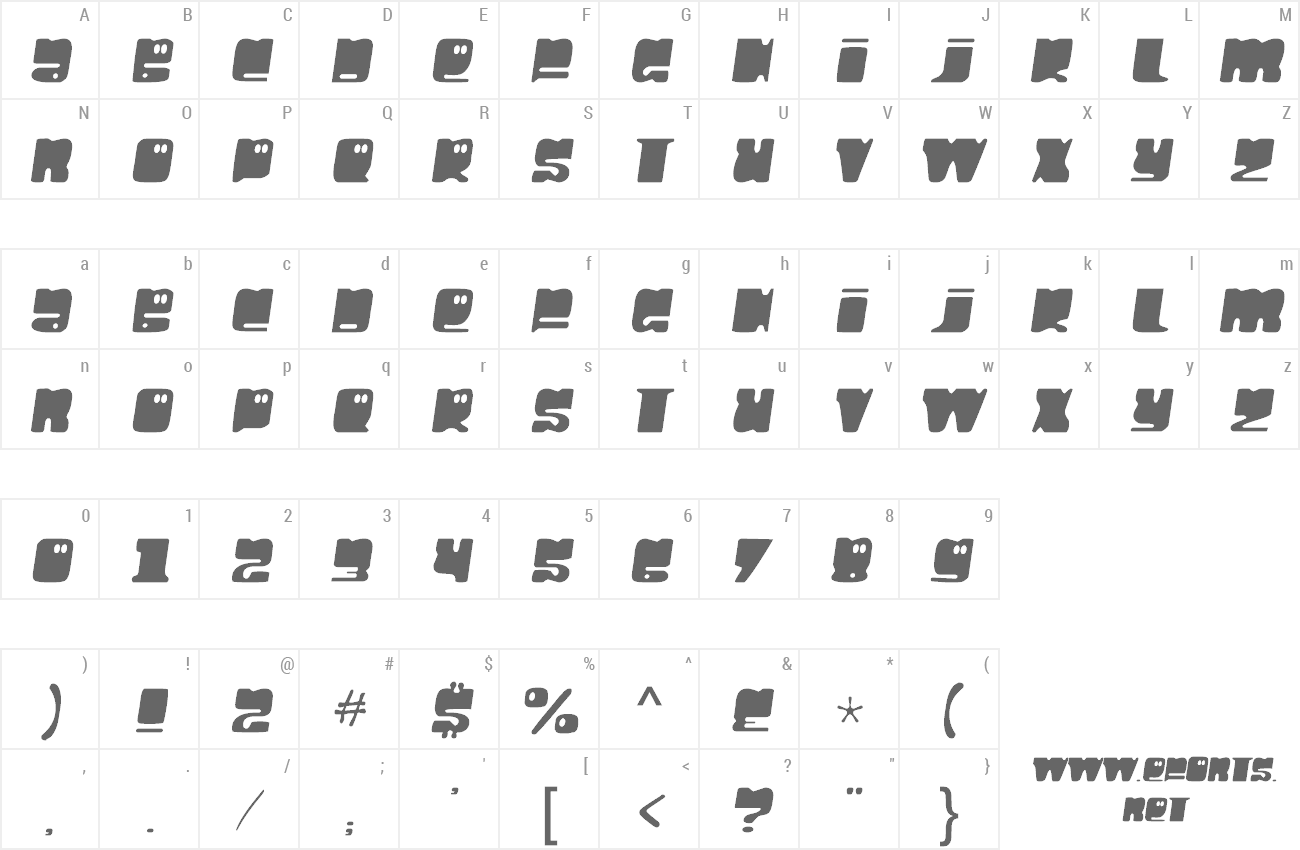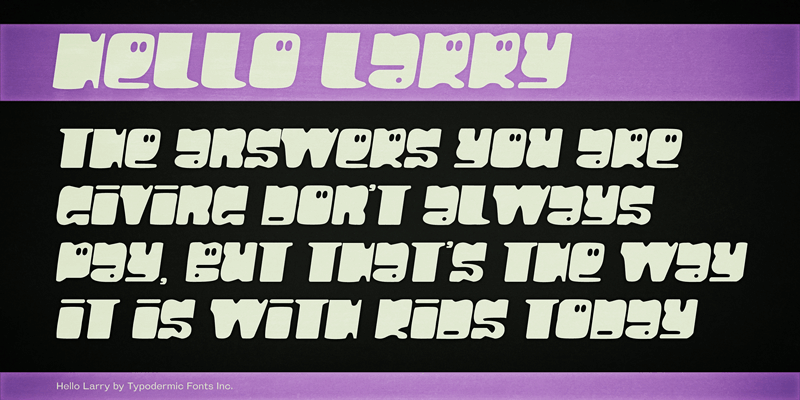
Preview and download Hello Larry Font. Created by Typodermic Fonts in Fancy Groovy styles with 100% Free license.
Hello Larry kicks common sense to the curb. This font includes a license that allows free commercial use: sometimes referred to as a desktop license. This allows you to install the font on a computer and use it to create posters, web graphics, game graphics, t-shirts, videos, signs, logos and more. Read the license agreement for details. If you'd like to embed this font in an app, ebook, on the web or anything that's not covered by the desktop license agreement, visit the link below. You'll find distributors who offer different types of licenses or you can contact me for help. http://typodermicfonts.com/hello-larry/ |